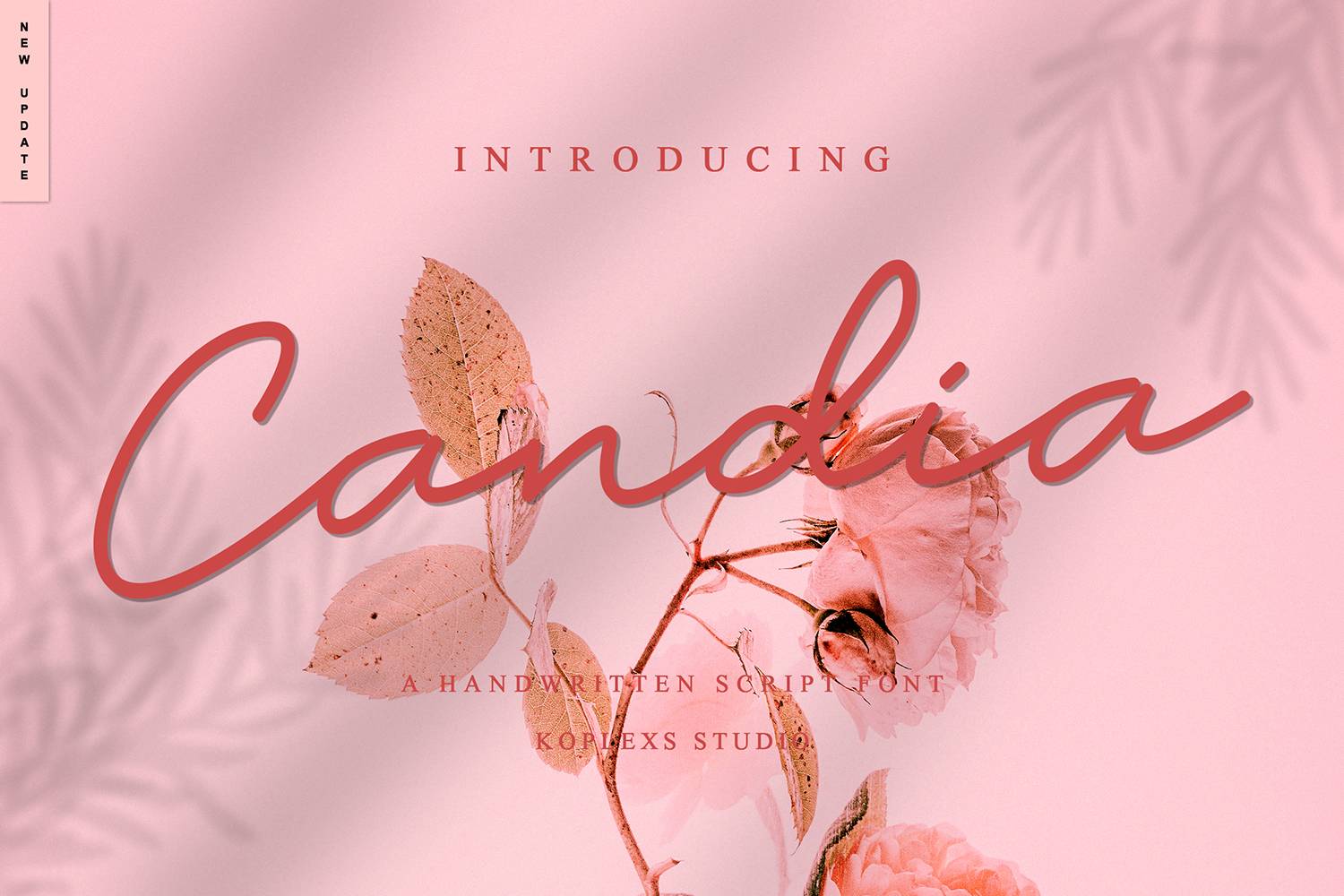
Candia is a delicate script font with a light weight and fluid, handwritten style that feels both elegant and approachable. Its narrow letterforms and smooth, flowing strokes create an airy, personal touch, making it ideal for invitations, branding, and creative projects that seek a charming, feminine vibe. This font works beautifully in logos and headlines where a graceful, authentic feel is desired.
Candia Font
About Candia Font